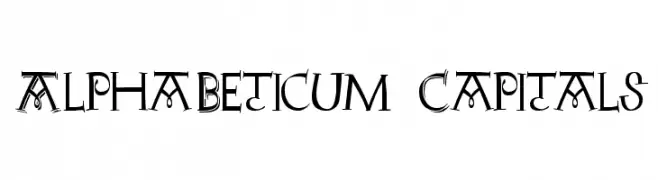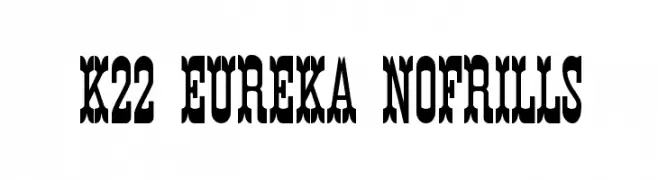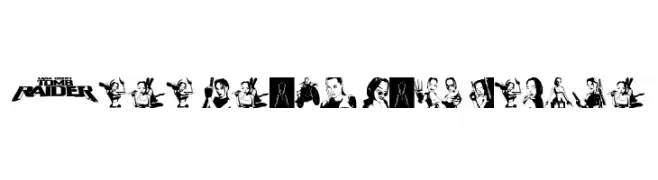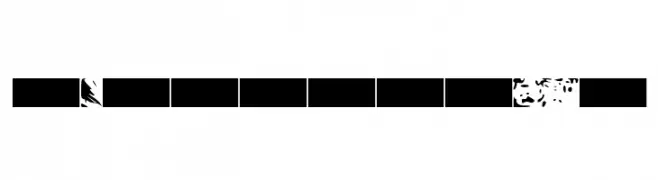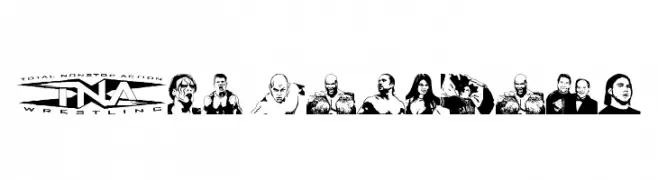
A bold, decorative font with intricate cut-out details and a vintage poster feel.
A bold, Gothic-style font with sharp, angular lines and intricate details.
A bold and decorative font with intricate details and sharp angles.
A bold, gothic-style font with intricate details and a medieval flair.
A decorative font with elegant, elongated serifs and intricate details.